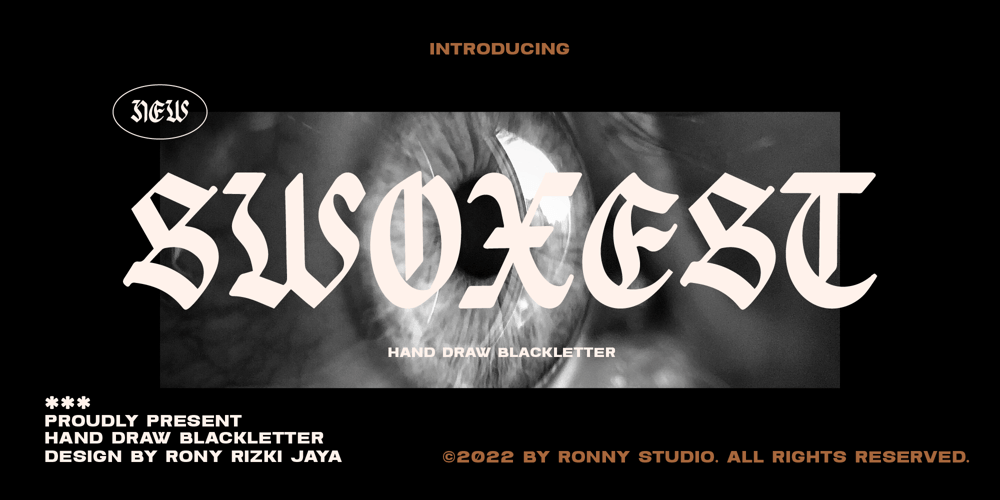
Swoxest Font Family was designed by Rony Rizki Jaya and published by Ronny Studio. Swoxest contains 2 styles and family package options. Swoxest is a high-contrast blackletter typeface, it adds a bold touch to your projects and will inspire you to create something unique and modern. This font also comes with alternative characters, and multi-language support. This font is ideal for titles, flyers, greeting cards, product packaging, book covers, printed quotes, logotypes, clothing designs, branding and album covers.Features :- Lowercase & Uppercase (All Caps)- numbers and punctuation- multilingual- alternates- PUA encodedPlease contact us if you have any questions. Enjoy Crafting and thanks for supporting us! :)Thank you